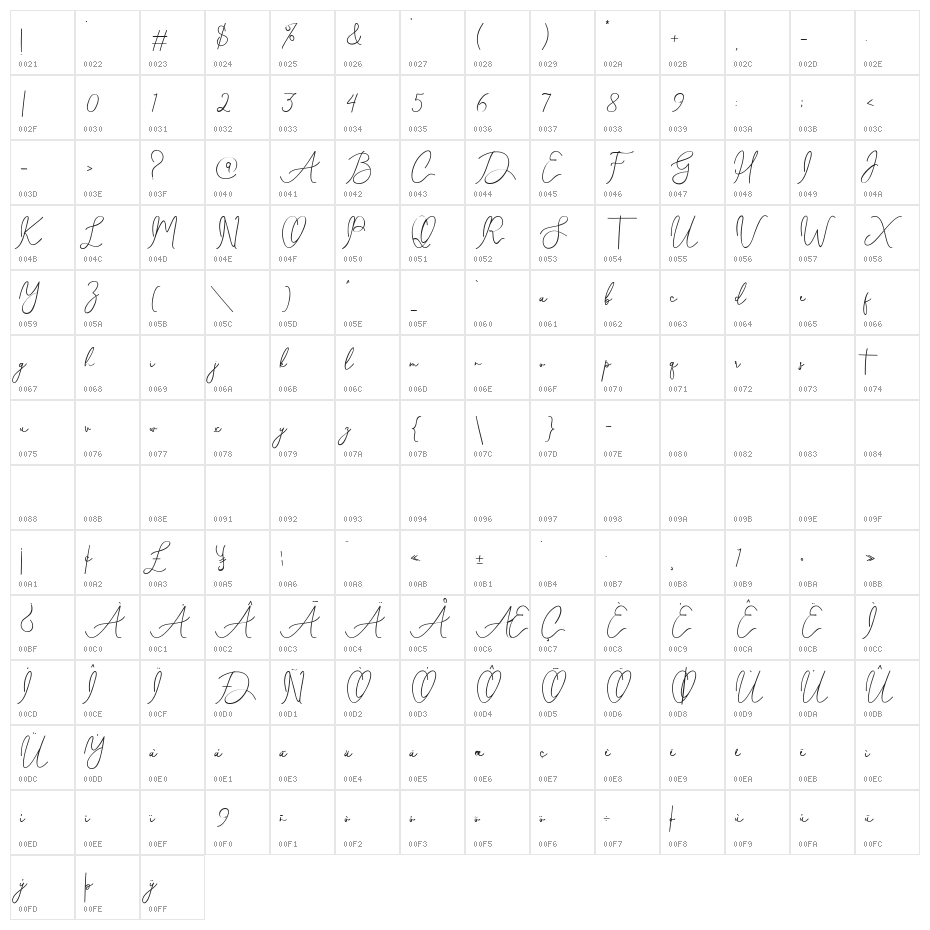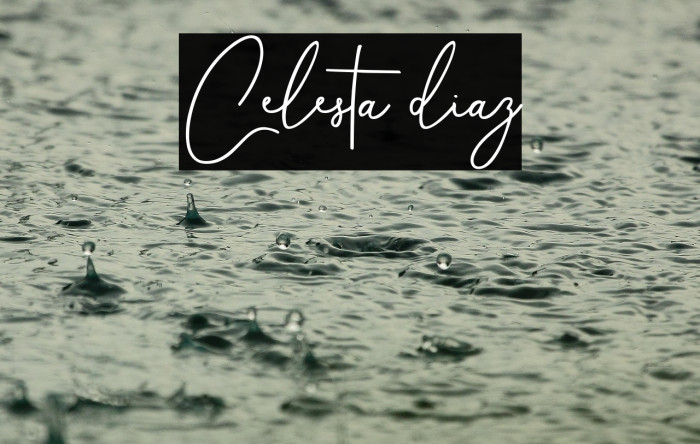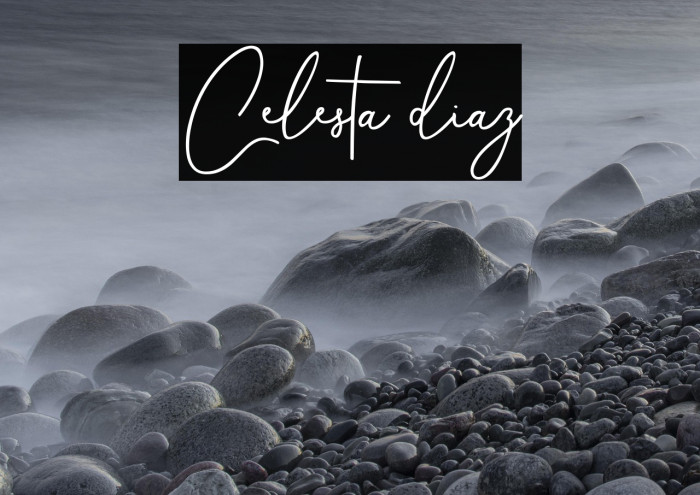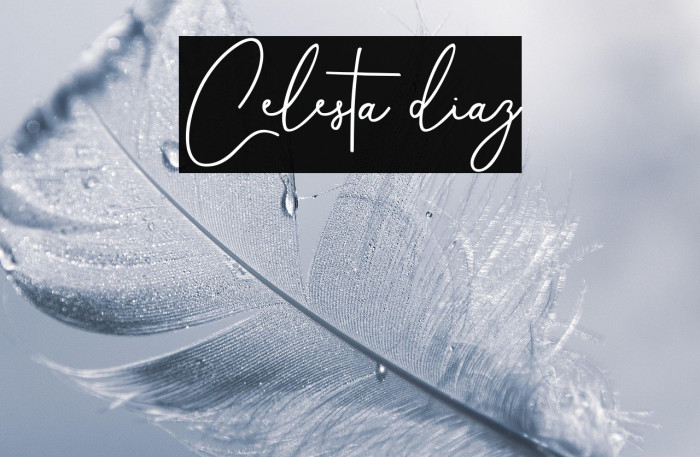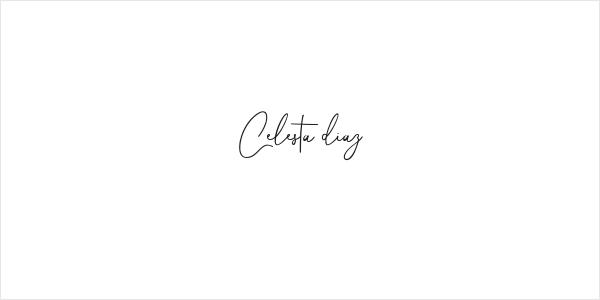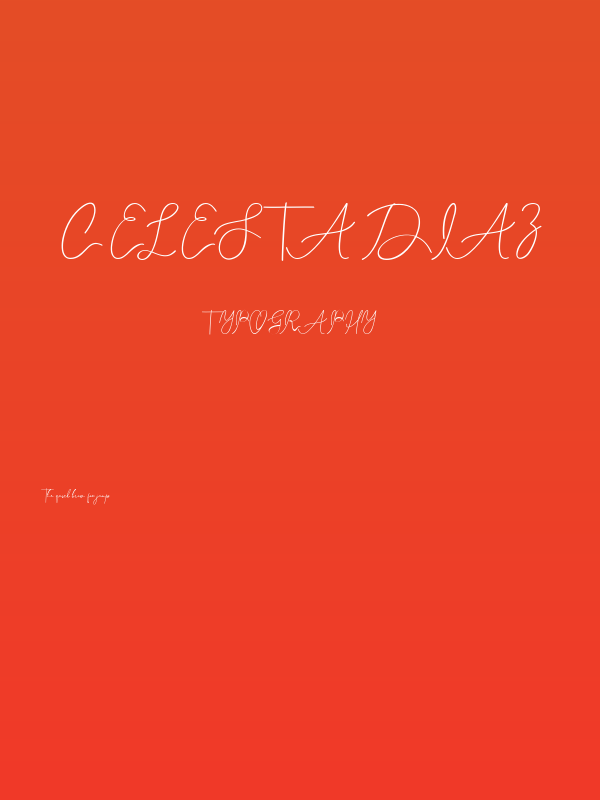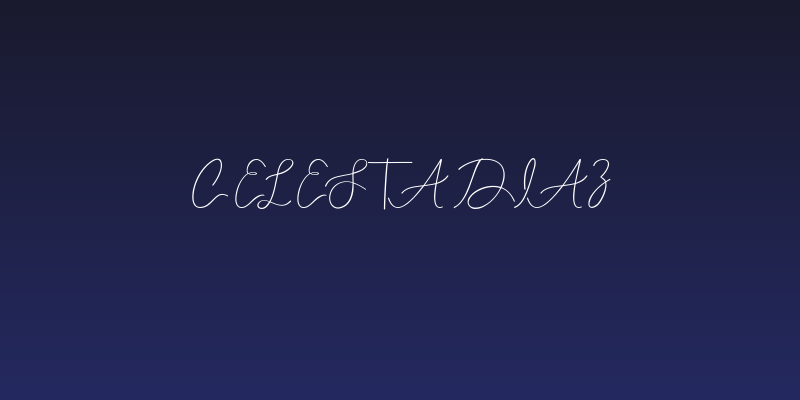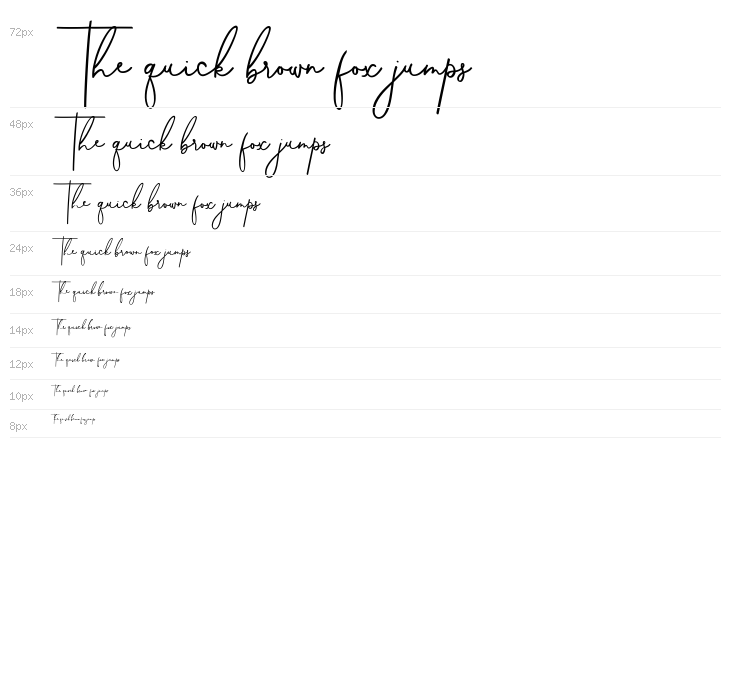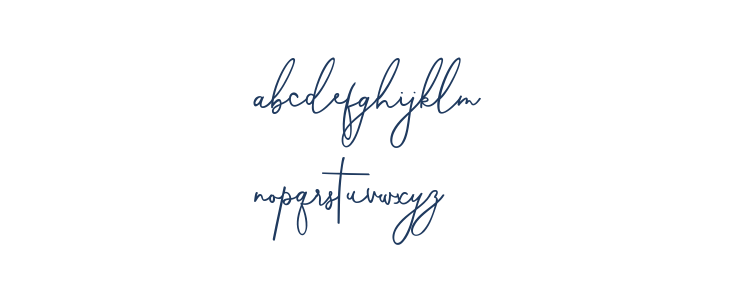
Celesta diaz Font
Celesta diaz Description
This elegant script font features flowing, interconnected letters that evoke a sense of sophistication and grace. The uppercase characters are tall and slender, with sweeping curves and delicate loops, while the lowercase letters maintain a consistent fluidity, enhancing readability. The numerals are stylishly integrated, matching the overall aesthetic with their smooth lines and gentle curves. Special characters are thoughtfully designed, adding a touch of flair without compromising legibility. This font's refined appearance makes it suitable for formal invitations, branding, and any project requiring a touch of elegance.
| Use Case | Headlines, Invitations, Branding |
| Proposed Projects | Ideal for wedding invitations, luxury branding, elegant stationery, and high-end product packaging. |